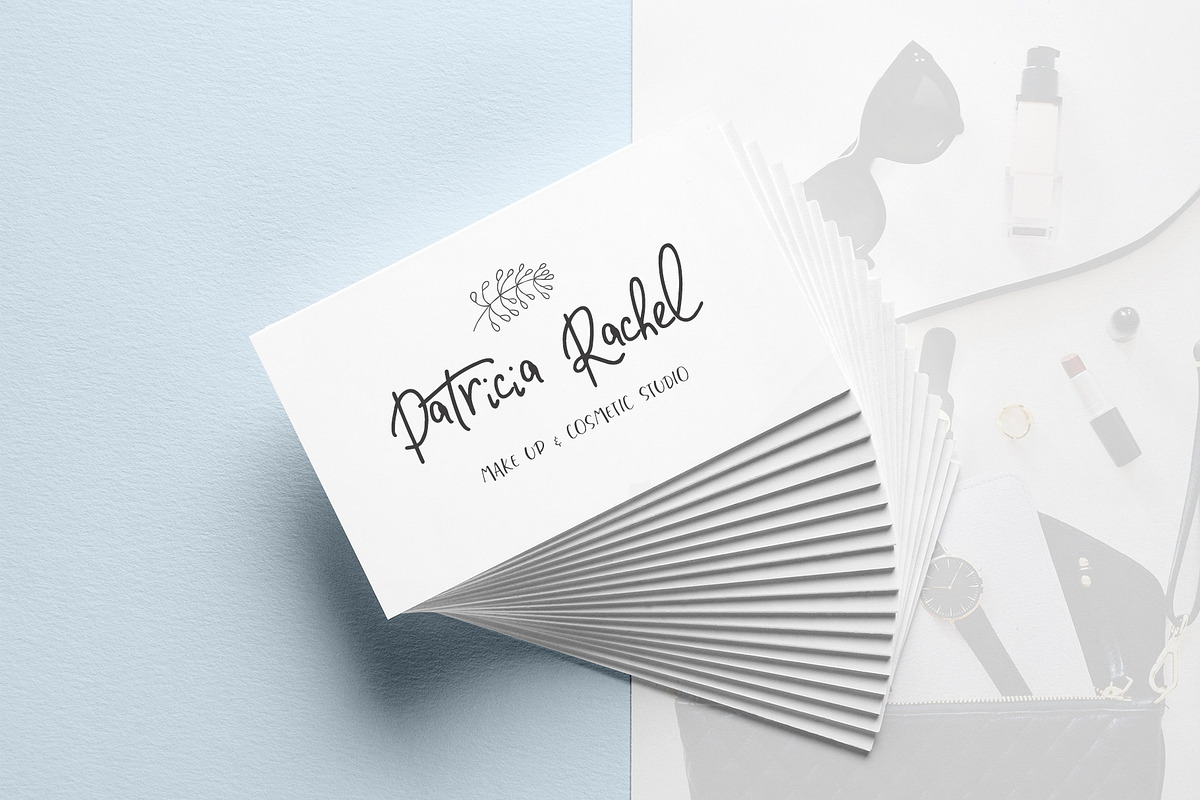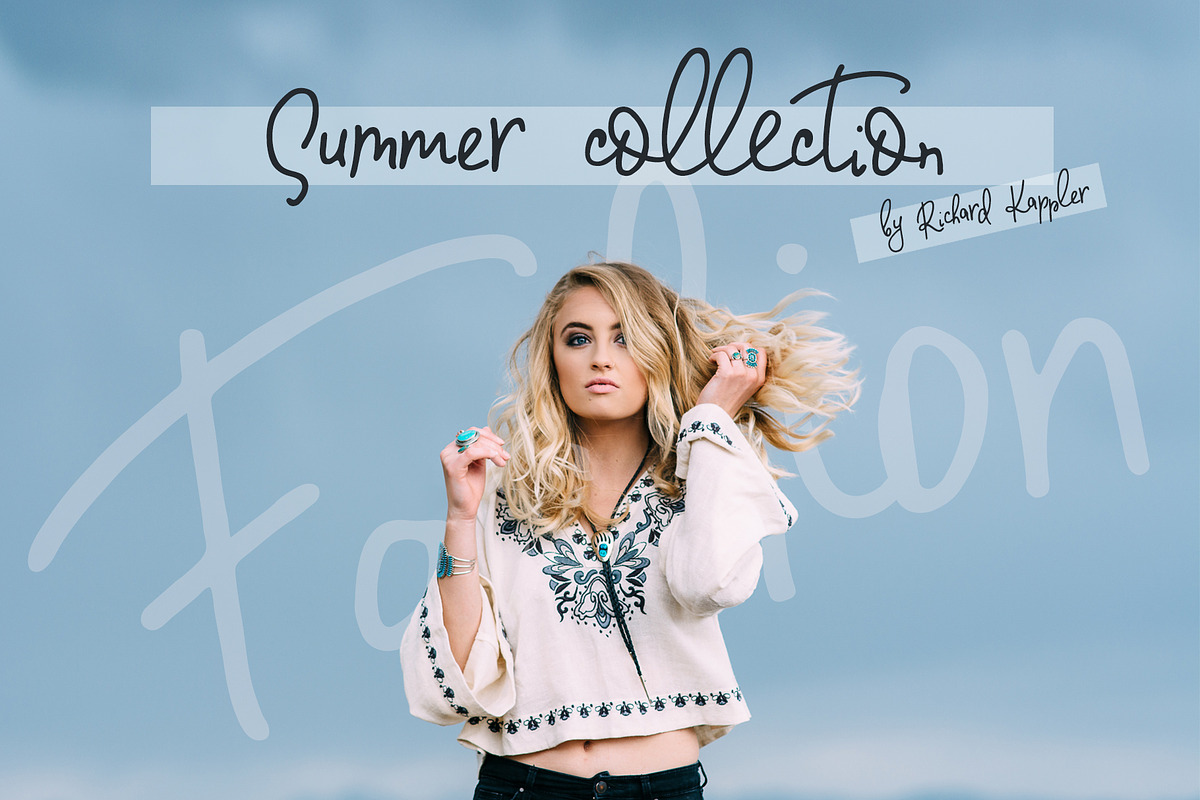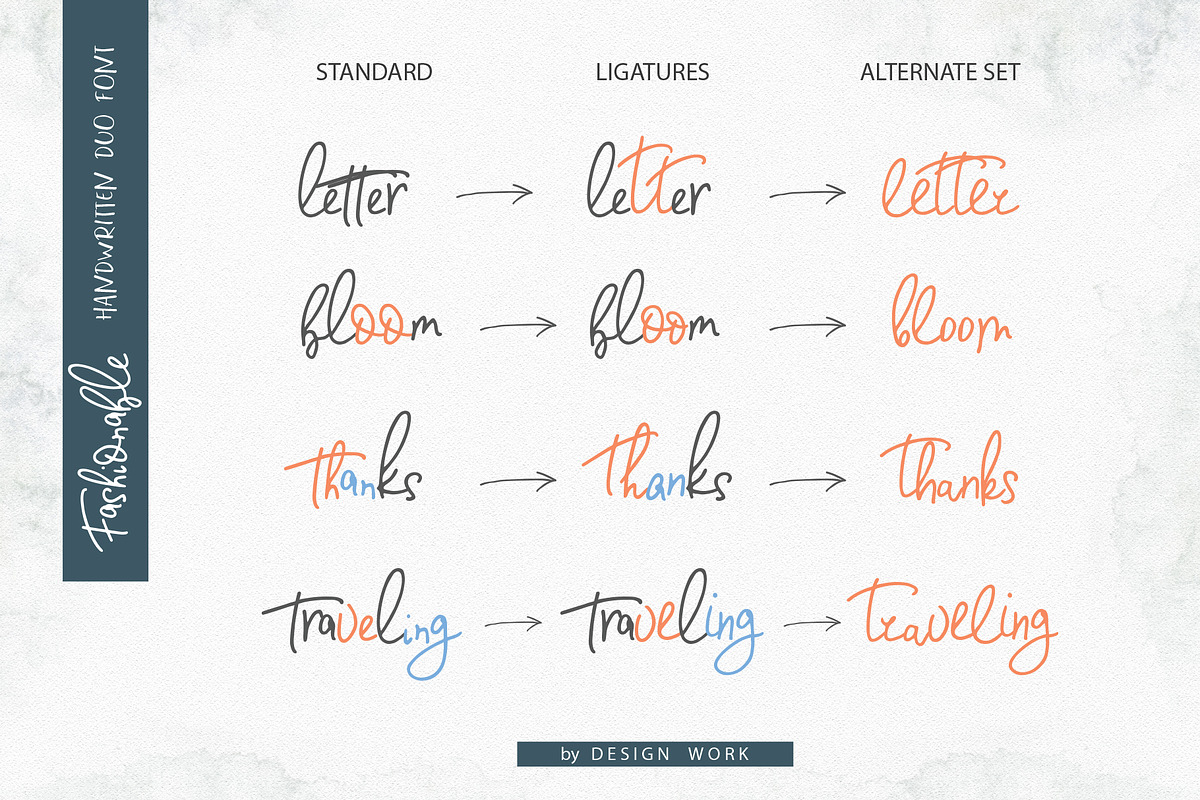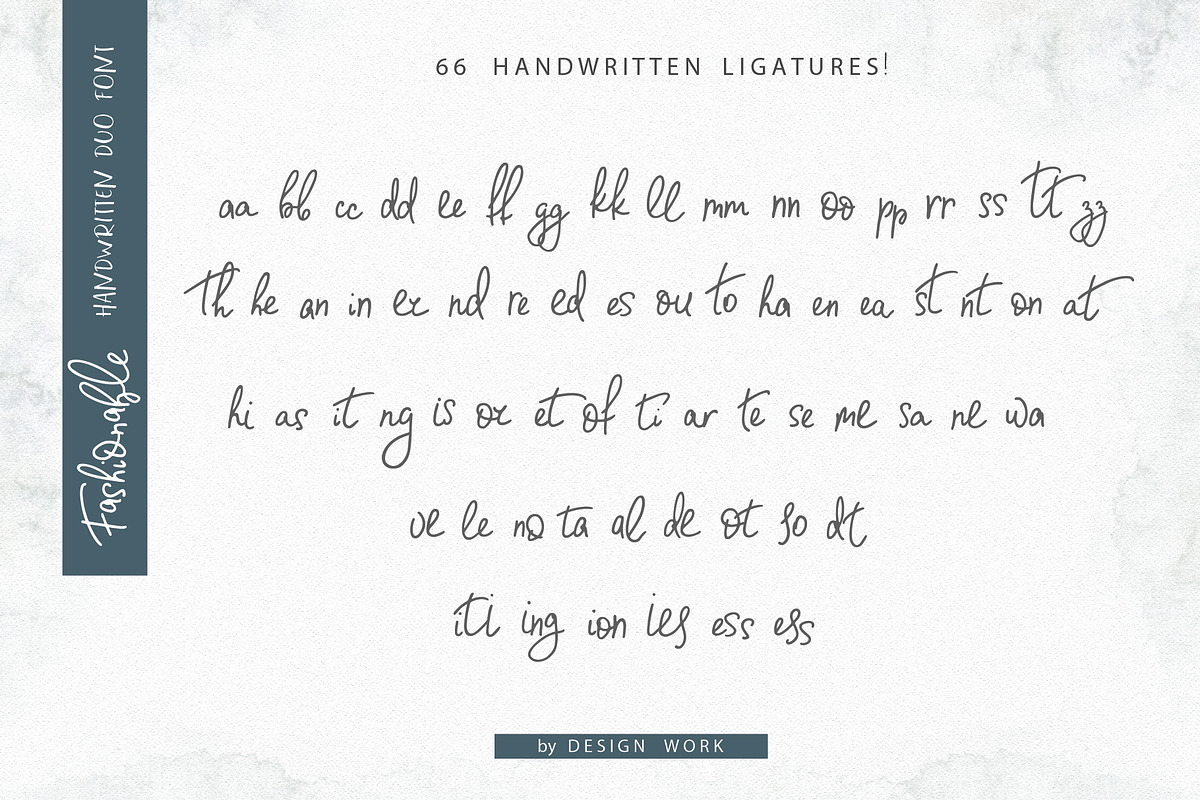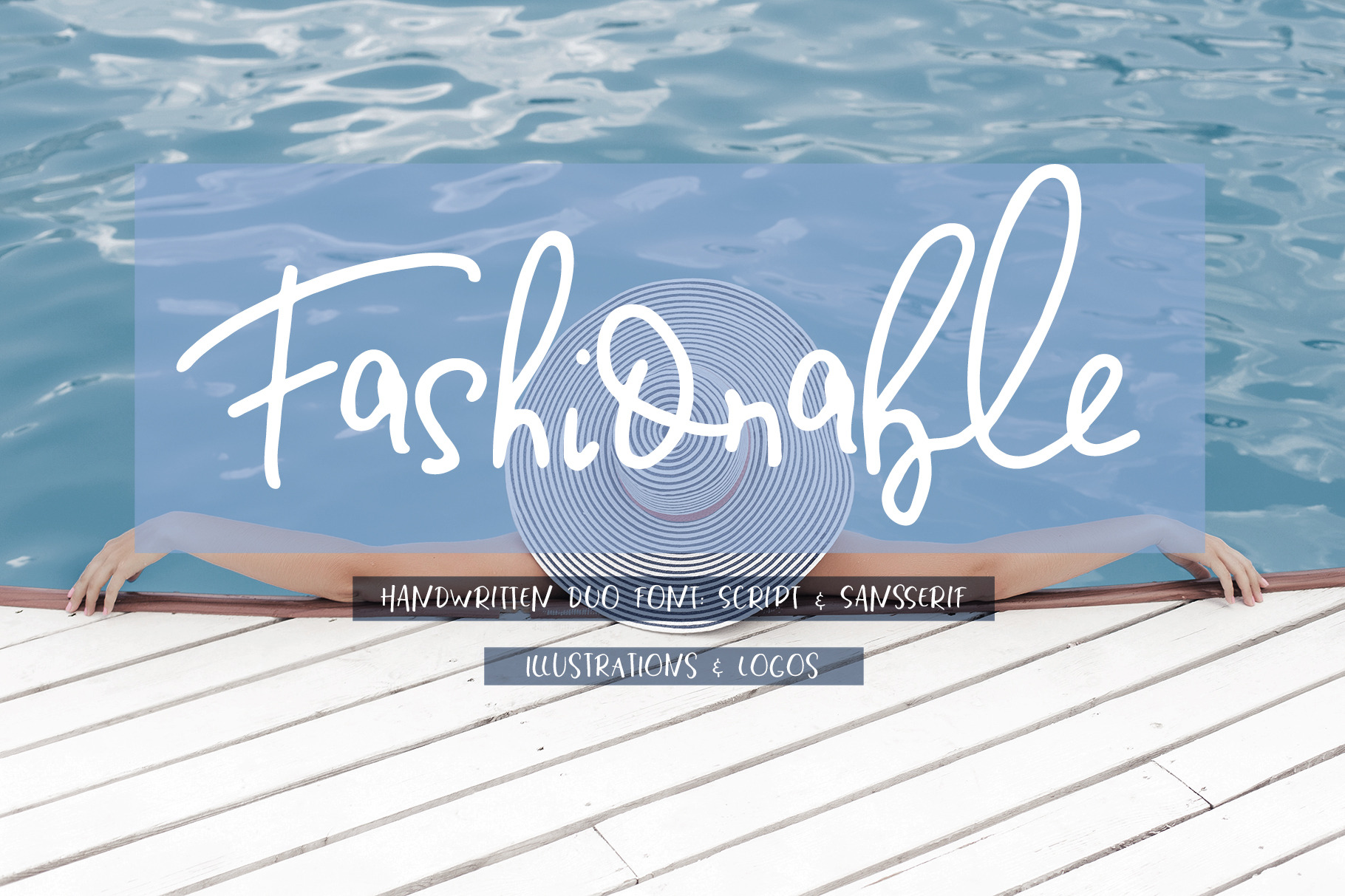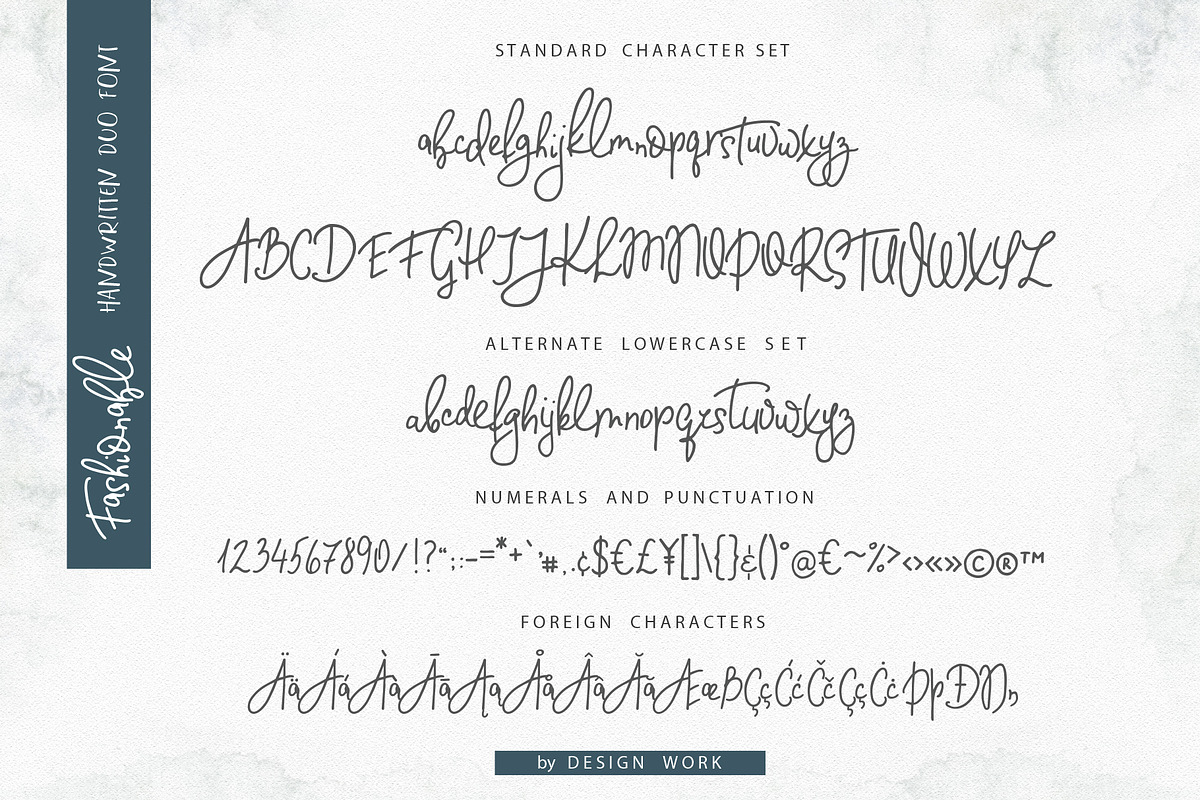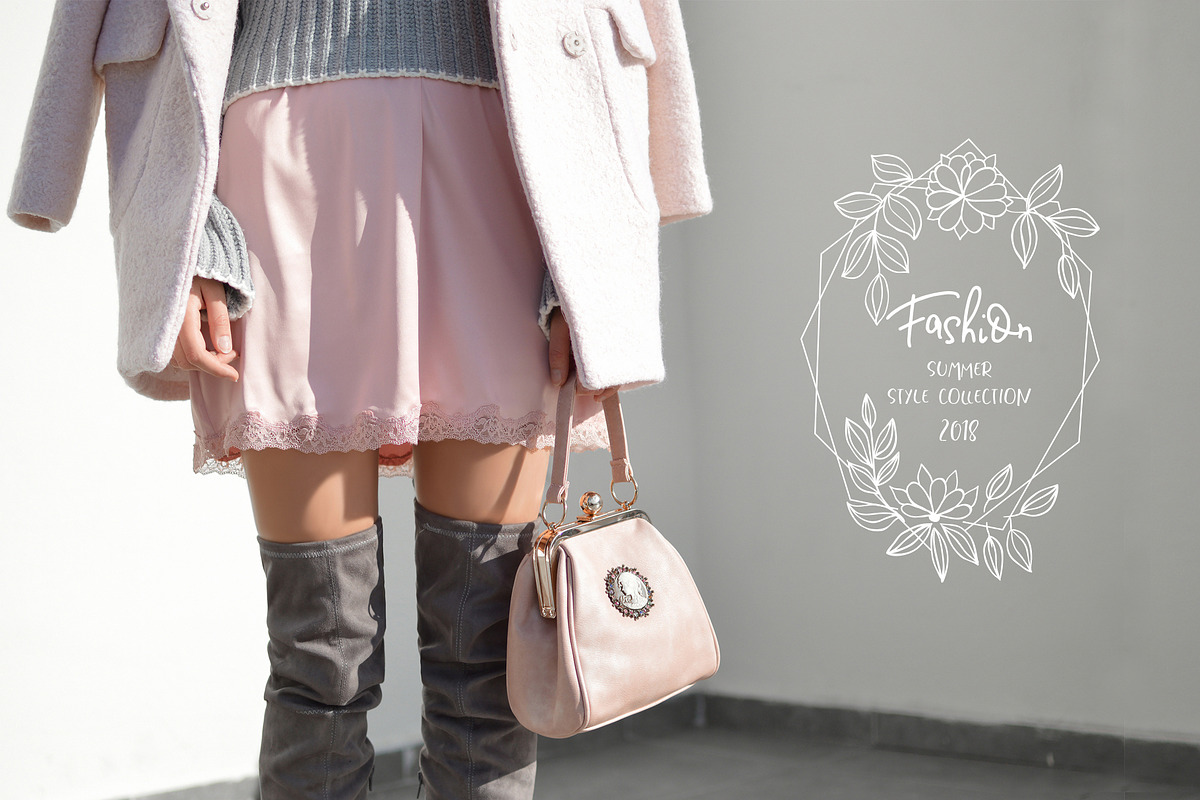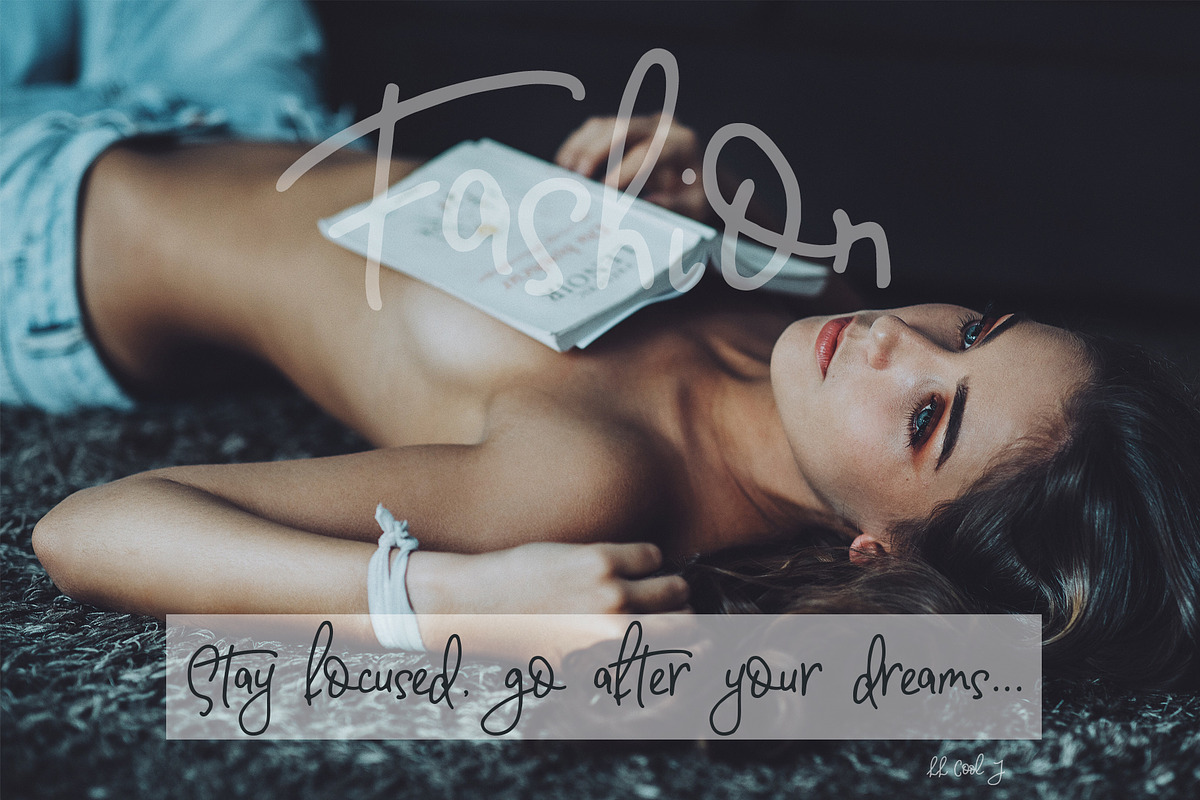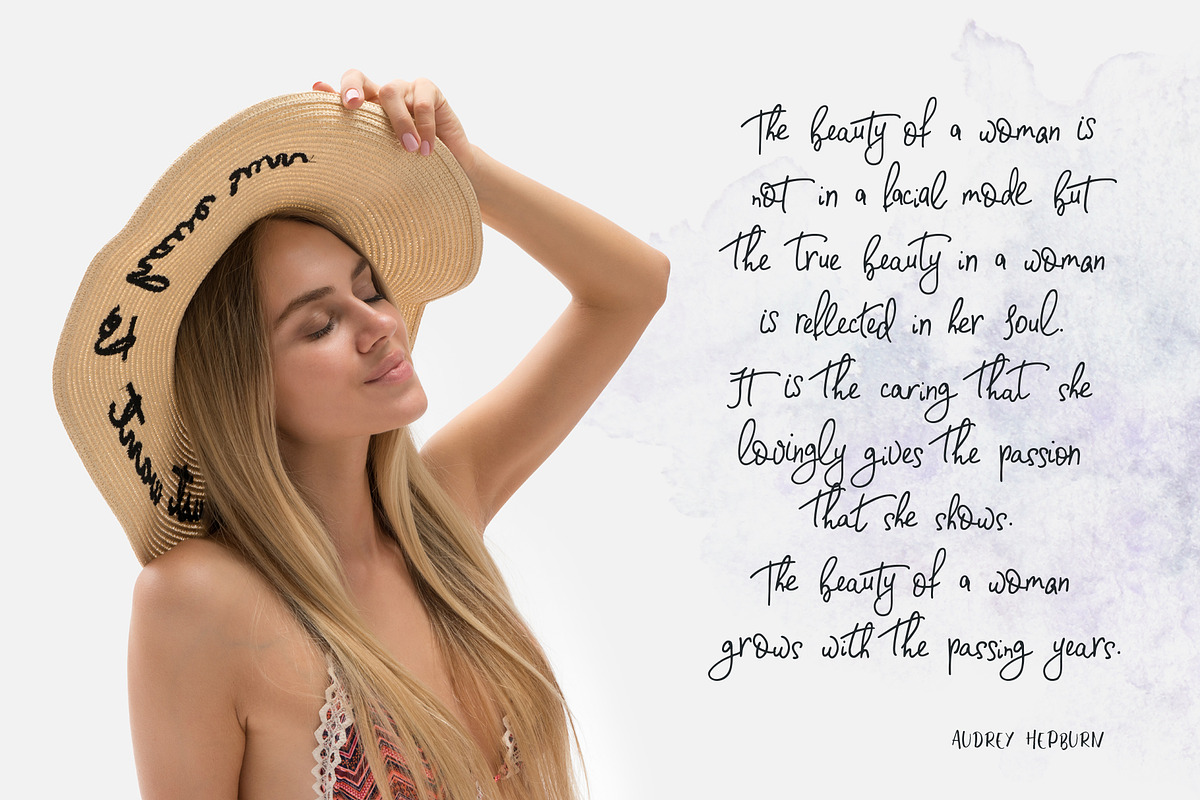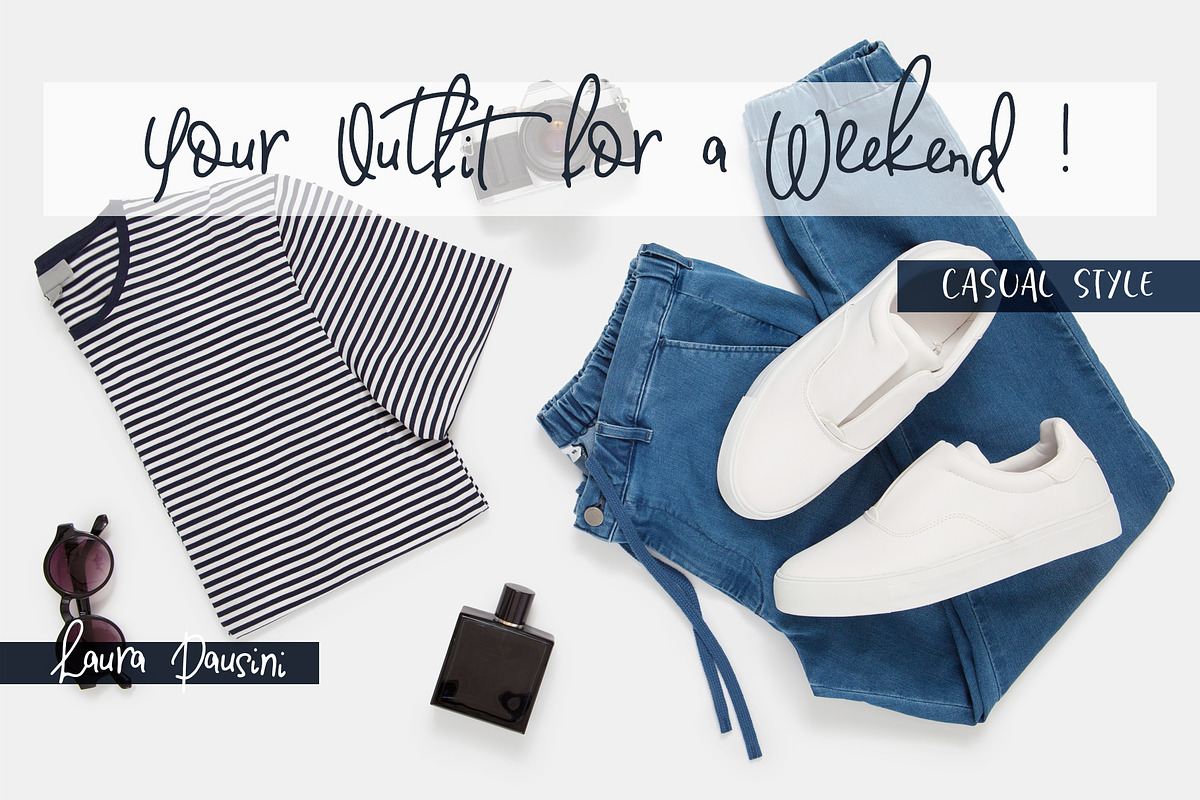
Fashionable Duo Font & Illustr.
Introducing the new ‘Fashionable Duo Font’ - a stylish, fashionable handwriting fonts: script and sansserif with modern extras- illustrations and logos! =)
‘Fashionable Duo Font’ was created to look as close to a natural handwritten script as possible by including over 66 ligatures, and a full set of lowercase alternates. With built in Opentype features, this script giving realistic hand-lettered style as if you are writing it yourself.
All fonts include lowercase, uppercase, numbers, punctuation & international characters.
Multilingual Support for Western European, Central, and South East European.